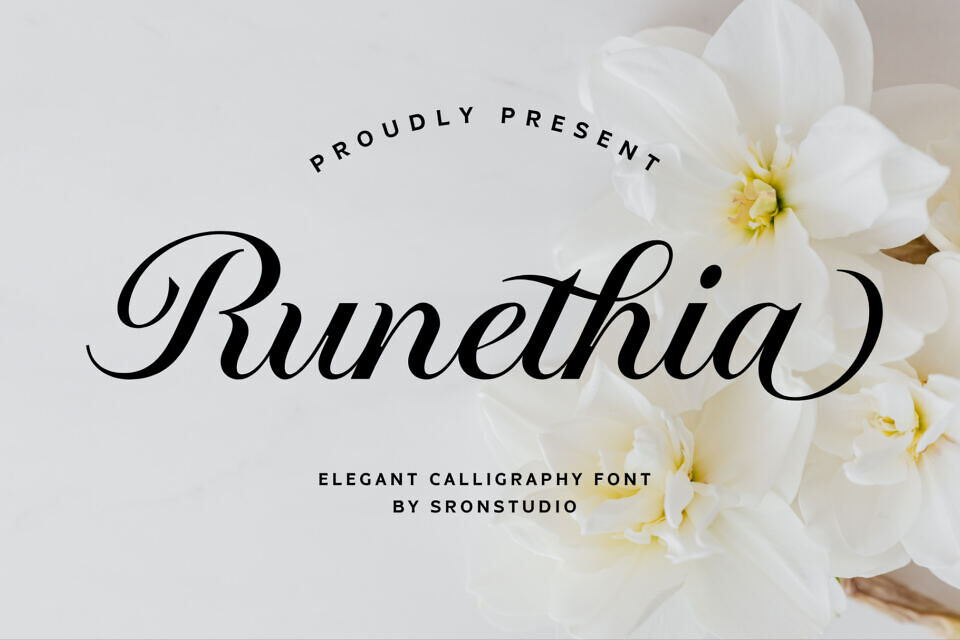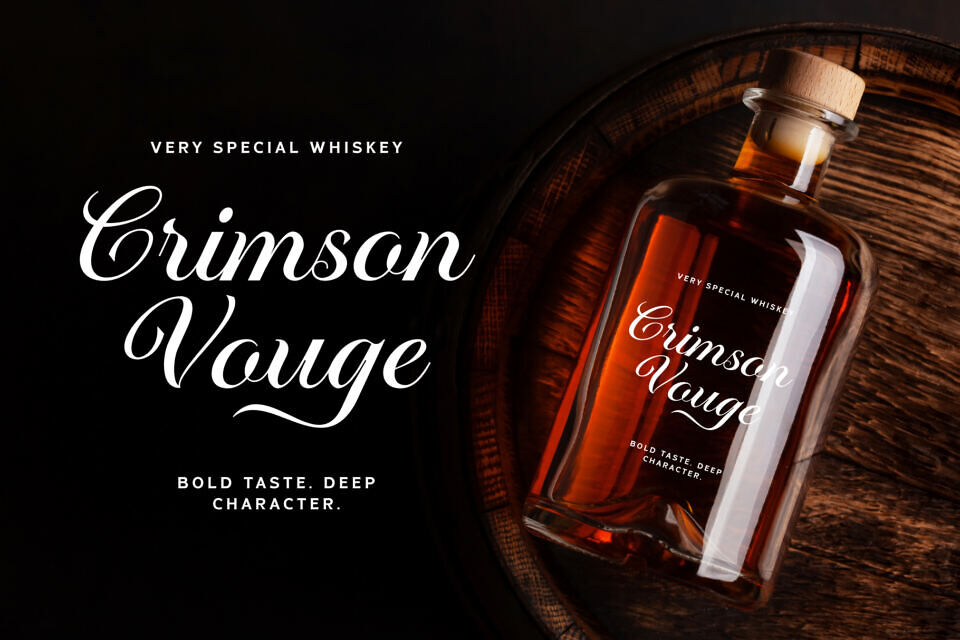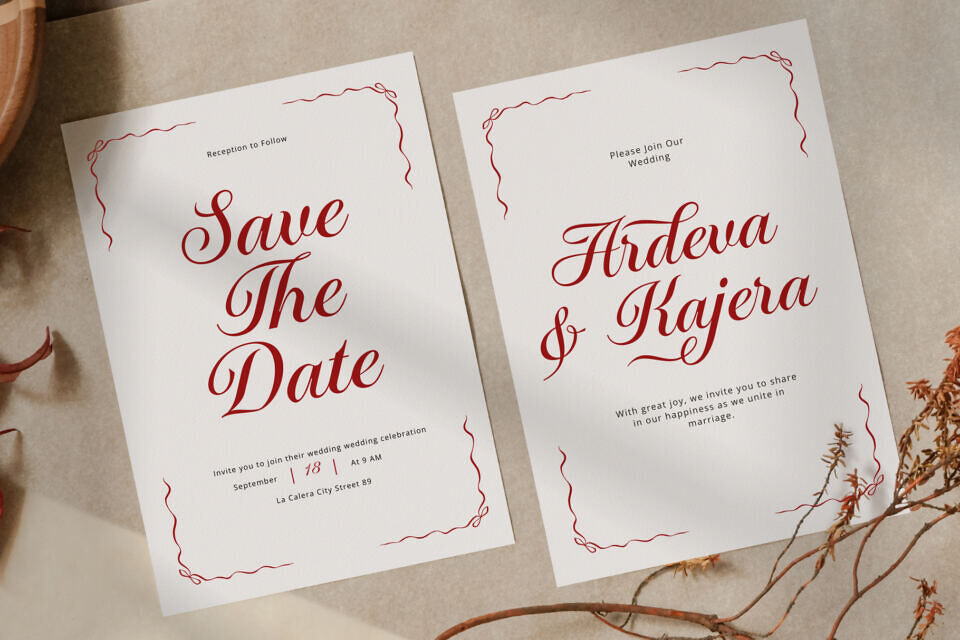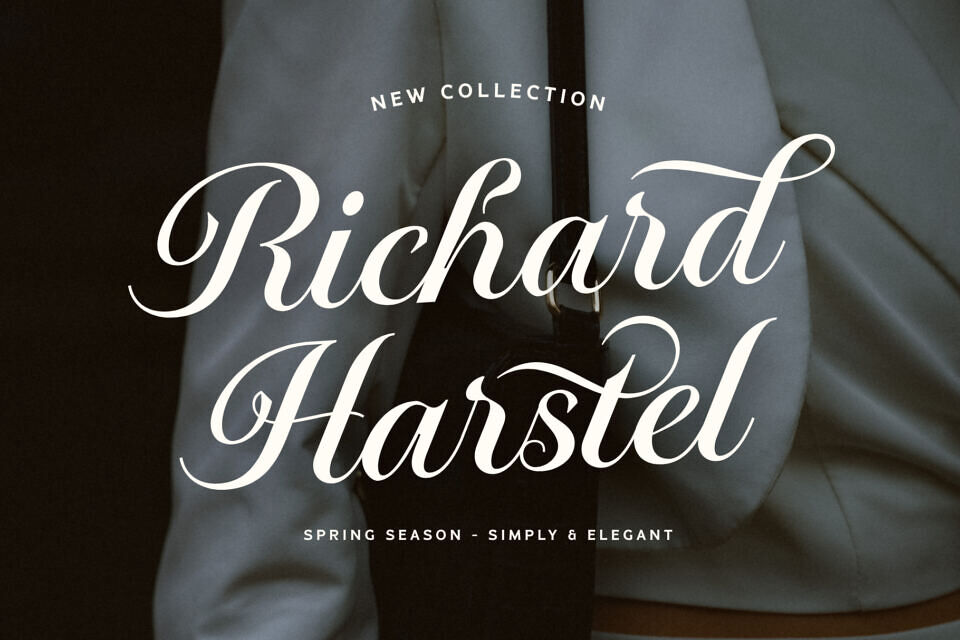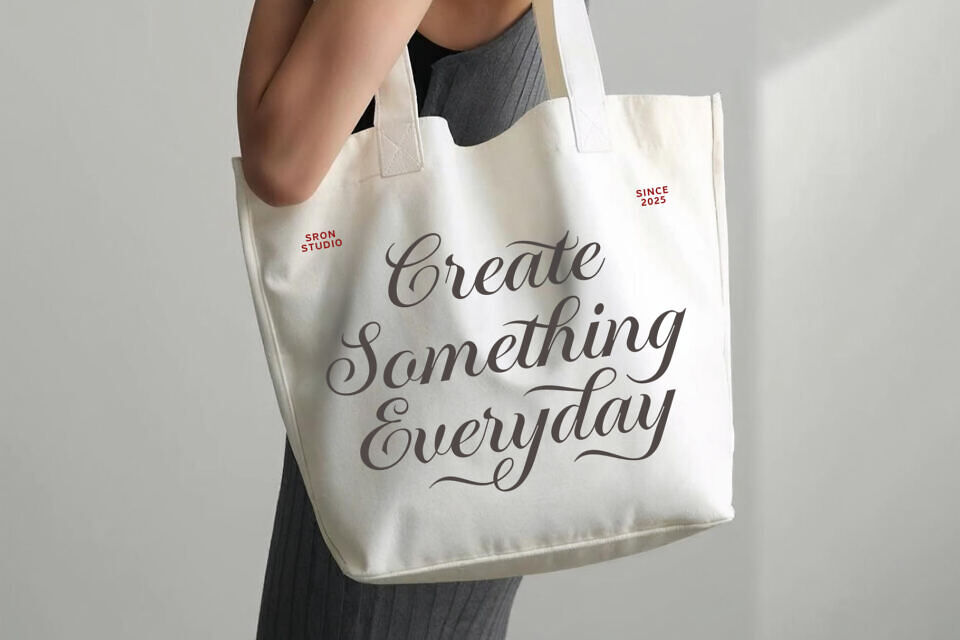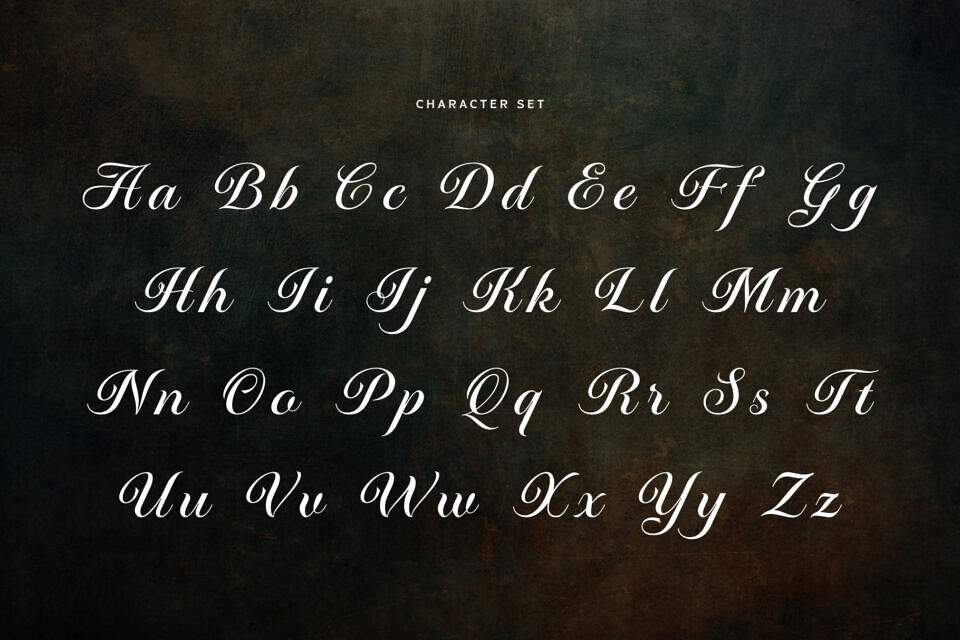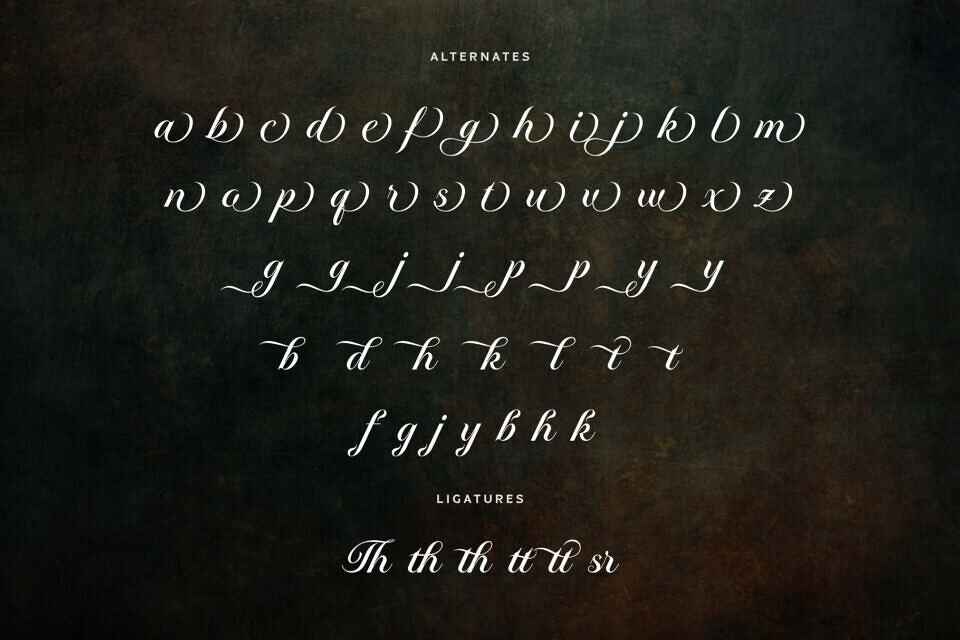
Runethia Font
Runethia is an elegant calligraphy font that captures grace, beauty, and timeless sophistication. With its flowing strokes, delicate curves, and refined details, this font is perfect for wedding invitations, luxury branding, logos, packaging, and romantic designs. Runethia brings a soft yet expressive calligraphic touch, making every word feel personal and beautifully crafted.